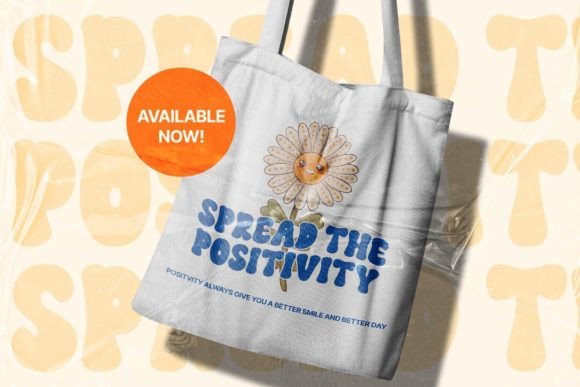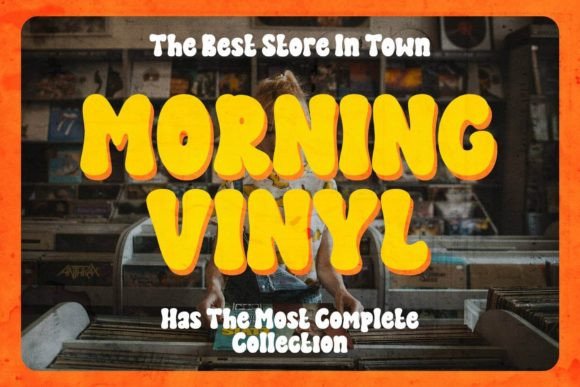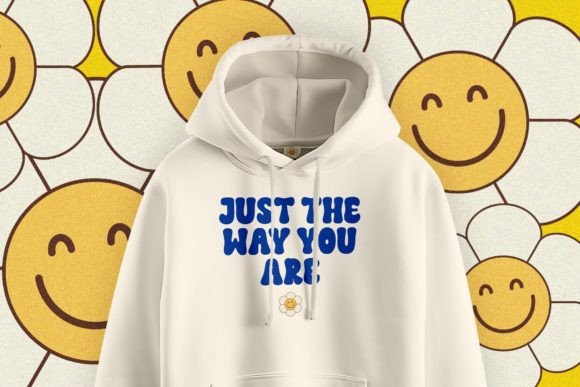
Introduction to Master Retro Font
Have you ever been working on a creative project and suddenly stumbled upon the perfect font to give it that extra oomph? For me, that moment came when I discovered the Master Retro Font – a vibrant and nostalgic font that instantly transported me back to the carefree days of the 1970s.
With its bold and playful letterforms, reminiscent of disco parties and funky vibes, the Master Retro Font is a design resource that’s sure to add a touch of nostalgia and whimsy to any project. Whether you’re working on a retro-themed poster, a vintage-inspired website, or a fun social media graphic, this font is the perfect addition to your design arsenal.
What sets the Master Retro Font apart is its unique and eye-catching style, which can be used on a transparent background to create a high-quality design that’s sure to grab attention. And the best part? It’s available for free download, making it a valuable resource for designers of all levels.
Key Features of Master Retro Font
- Unique and Creative Typography: The Master Retro Font offers a distinctive and nostalgic look, perfect for any creative project that requires a vintage touch.
- High-Quality Design Resource: This font is designed with precision and attention to detail, ensuring a high-quality design resource for your next project.
- Perfect for Designers: The Master Retro Font is a valuable design resource for graphic designers, UI/UX designers, and anyone who wants to add a touch of nostalgia to their creative project.
Honest Review: Master Retro Font
I recently came across the Master Retro Font and was excited to try it out for my latest creative project. The first thing I noticed was the high-quality design and unique style, which immediately caught my attention. I love how it adds a touch of nostalgia and playfulness to any design.
- ✨ Unique and stylish design: The Master Retro Font has a distinctive look that sets it apart from other fonts.
- ⚠️ Limited font styles: The Master Retro Font is limited to a single style, which may not be suitable for projects that require multiple font styles.
- ⚠️ Not ideal for professional use: While the font is high-quality, it may not be suitable for professional use due to its casual and playful nature.
Overall, I’m impressed with the Master Retro Font and would recommend it for personal or creative projects. It’s a great design resource for those looking to add a touch of nostalgia and whimsy to their designs. With a little creativity, the Master Retro Font can be a valuable addition to any design collection.
Tips for Getting the Most Out of Master Retro Font
To get the most out of Master Retro Font, experiment with different font sizes, colors, and styles. You can also combine the font with other design elements, such as graphics and images, to create a unique and eye-catching design. Additionally, use the font in conjunction with other design resources, such as templates and design assets, to create a high-quality creative project.